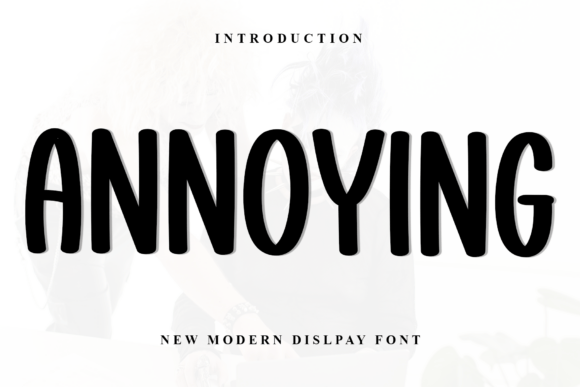
Are you tired of using the same old boring fonts for your headlines and signs? Look no further than Annoying Font, a bold and eye-catching display typeface that’s sure to grab attention. As its name suggests, Annoying Font is a font that’s hard to ignore, with its thick letters and strong presence making it perfect for standing out in a crowd.
What is Annoying Font?
Annoying Font is a display typeface that’s designed to make a statement. It’s a bold, sans-serif font with thick letters that are sure to grab attention. The font is perfect for use in headlines, signs, and any other application where you want to make a bold statement. Whether you’re looking to create a eye-catching advertisement or simply want to add some personality to your website, Annoying Font is the perfect choice.
Characteristics of Annoying Font
So what makes Annoying Font so unique? Here are just a few of its key characteristics:
- Bold and eye-catching: Annoying Font is a font that’s hard to ignore. Its thick letters and strong presence make it perfect for grabbing attention in headlines and signs.
- Sans-serif: Annoying Font is a sans-serif font, which means it doesn’t have any decorative flourishes or serifs. This gives it a clean and modern look that’s perfect for a wide range of applications.
- Thick letters: The letters in Annoying Font are thick and bold, making them easy to read and understand. This is especially important for headlines and signs, where you want to make sure your message is clear and concise.
Uses for Annoying Font
So what can you use Annoying Font for? The possibilities are endless! Here are just a few ideas to get you started:
- Headlines: Annoying Font is perfect for use in headlines, where you want to grab attention and make a bold statement.
- Signs: Whether you’re creating a sign for a business or simply want to add some personality to a room, Annoying Font is the perfect choice.
- Advertisements: If you’re looking to create an eye-catching advertisement, Annoying Font is the perfect font to use.
- Websites: Annoying Font can also be used on websites to add some personality and style to your content.
Benefits of Using Annoying Font
So why should you use Annoying Font? Here are just a few of the benefits of using this bold and eye-catching font:
- Grabs attention: Annoying Font is a font that’s hard to ignore. Its thick letters and strong presence make it perfect for grabbing attention in headlines and signs.
- Easy to read: Despite its bold and eye-catching design, Annoying Font is also easy to read and understand. This makes it perfect for use in headlines and signs, where you want to make sure your message is clear and concise.
- Versatile: Annoying Font can be used in a wide range of applications, from headlines and signs to advertisements and websites.
How to Use Annoying Font
So how do you use Annoying Font? Here are just a few tips to get you started:
- Choose the right size: Annoying Font is a bold and eye-catching font, but it’s also important to choose the right size for your application. Make sure the font is large enough to be easily read, but not so large that it overwhelms the rest of your content.
- Use it sparingly: While Annoying Font is a great font for grabbing attention, it’s also important to use it sparingly. Too much of a good thing can be overwhelming, so make sure to balance your use of Annoying Font with other fonts and design elements.
- Experiment with colors: Annoying Font comes in a range of colors, so don’t be afraid to experiment and find the perfect color for your application.
In conclusion, Annoying Font is a bold and eye-catching display typeface that’s perfect for grabbing attention in headlines and signs. With its thick letters and strong presence, Annoying Font is hard to ignore and easy to read. Whether you’re looking to create a eye-catching advertisement or simply want to add some personality to your website, Annoying Font is the perfect choice.